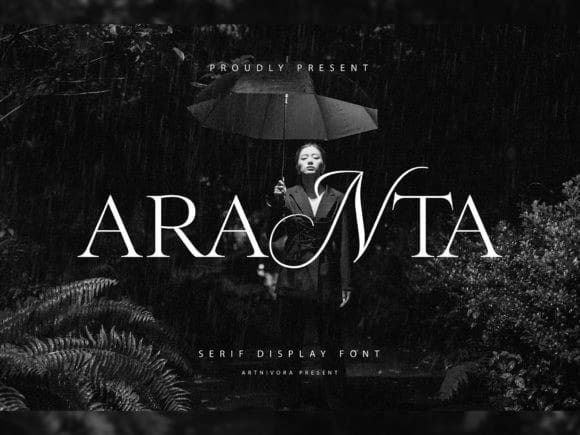
Aranta Font
Aranta Font, a simple and serif font. So perfect for you who needs a typeface for logo designs, magazine, social media, brochure, and many more.